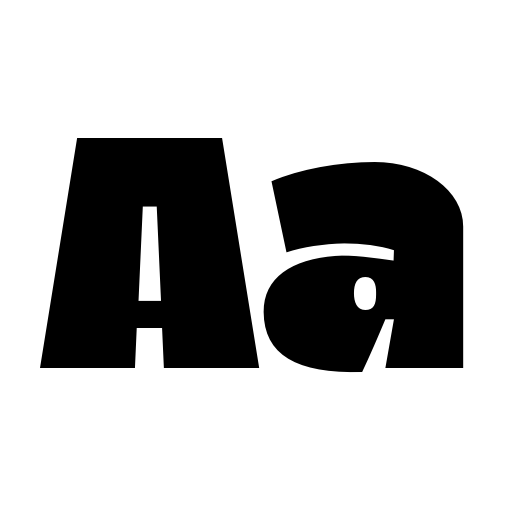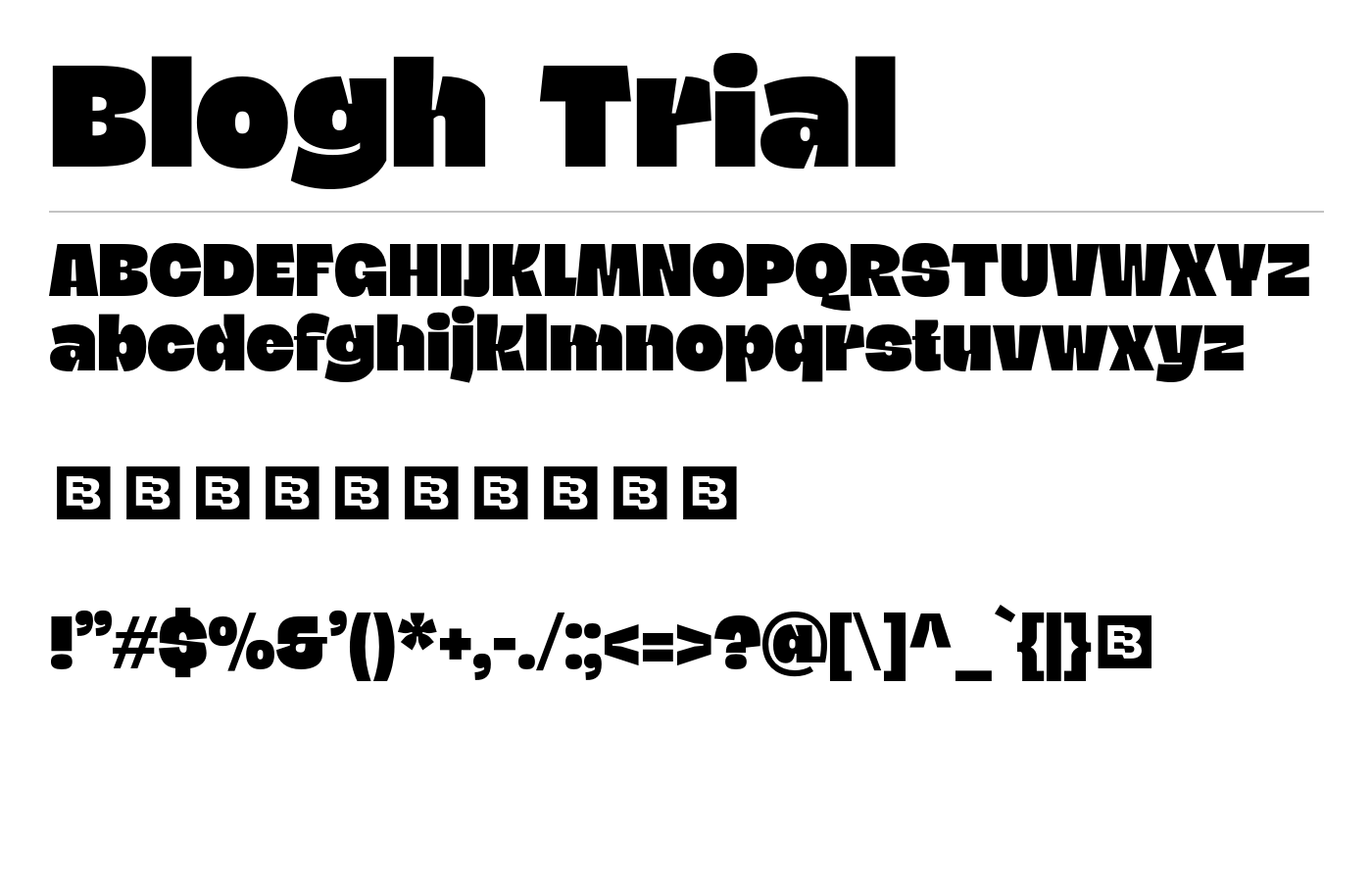
Blogh Trial is a bold and striking sans serif font with a strong, blocky presence that commands attention. Its thick, heavy strokes and slightly condensed width give it a modern yet playful character, making it ideal for impactful headlines, logos, and branding that need to stand out with confidence and personality. This font works particularly well in creative and energetic contexts where a memorable, bold statement is desired.
Blogh Trial Font
About Blogh Trial Font